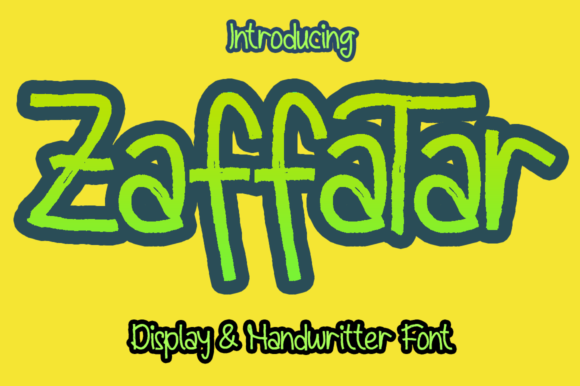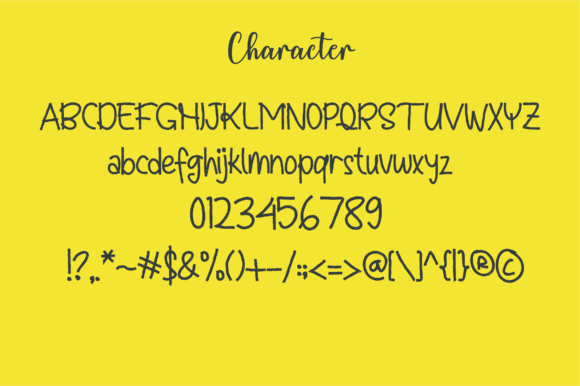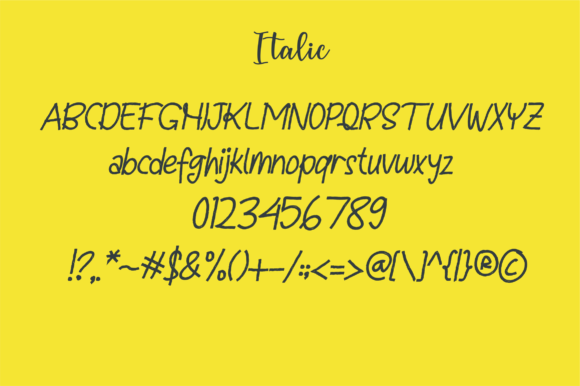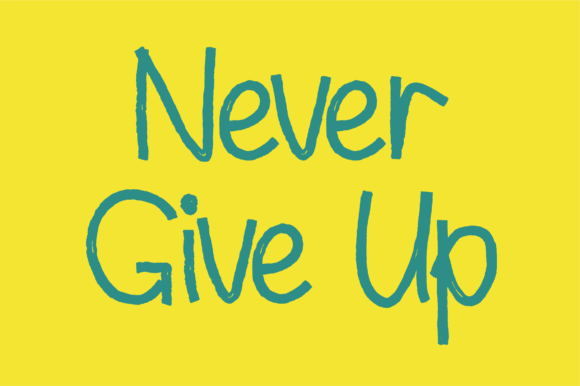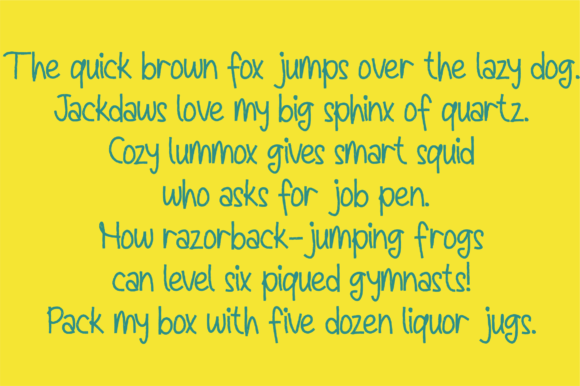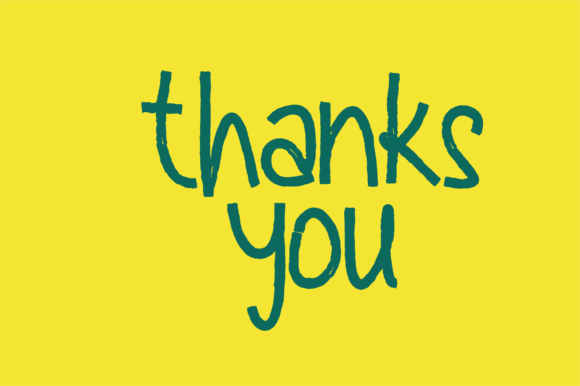
ZaffaTar Font
About ZaffaTar Font
ZaffaTar is a cute and friendly brushed handwritten font. Playful and a little bit quirky, this font is the perfect fit for all of your logos, branding, posters, and crafty DIY projects.